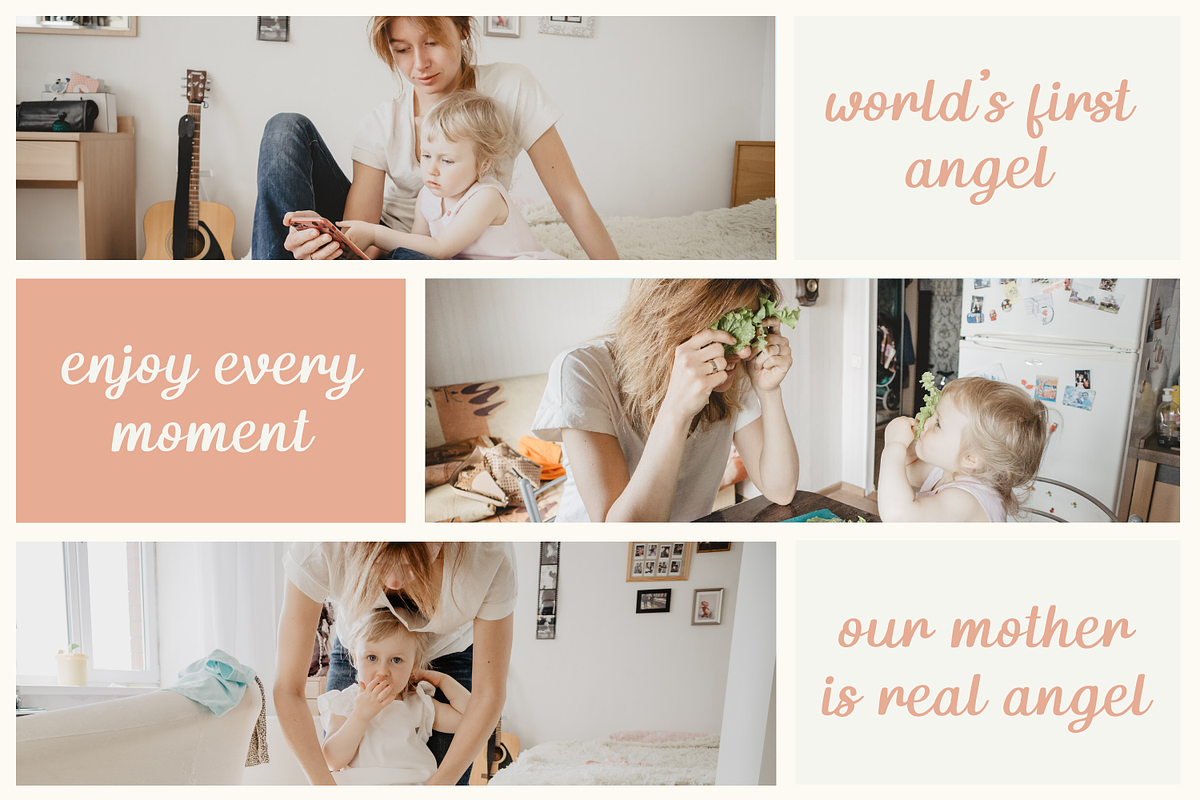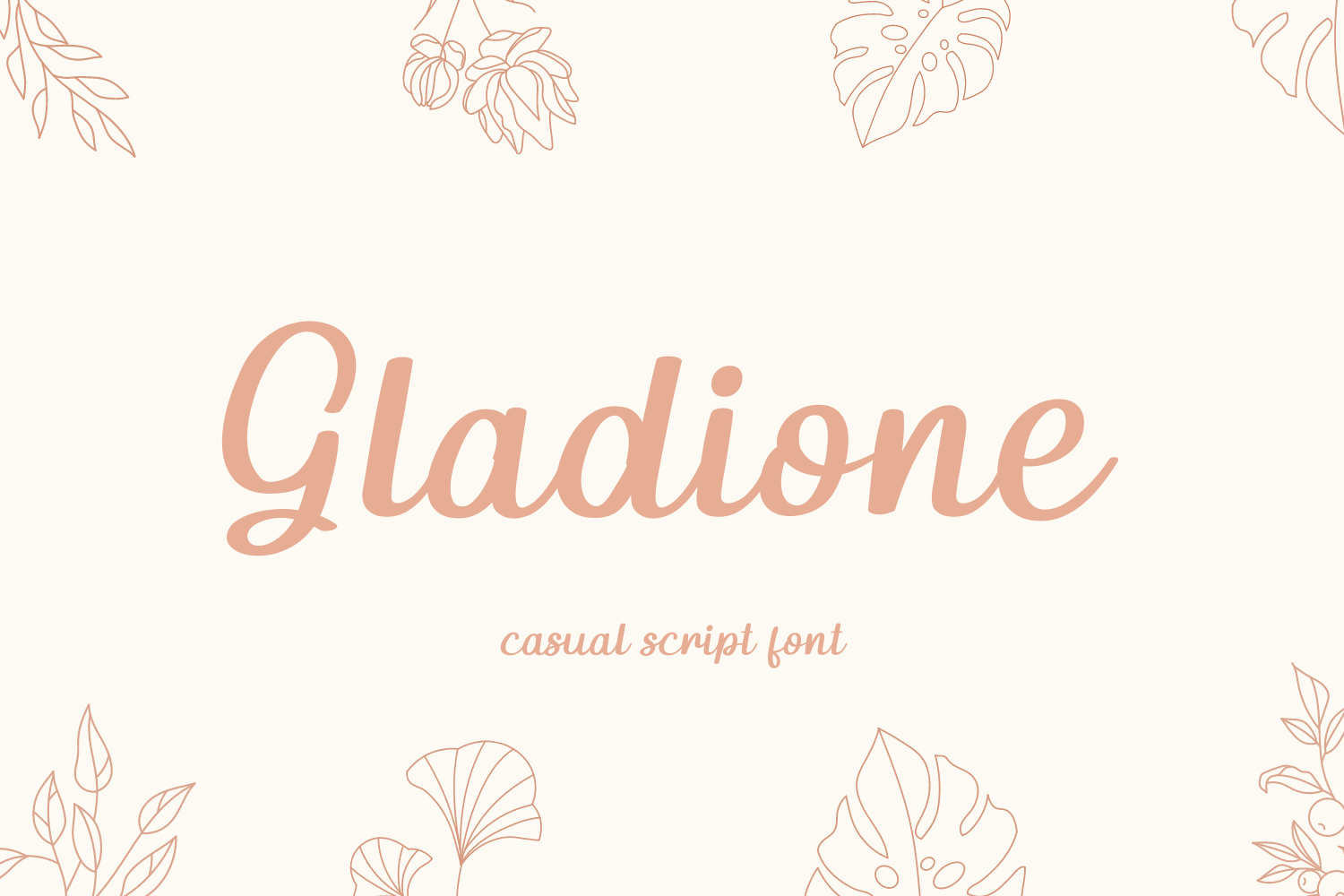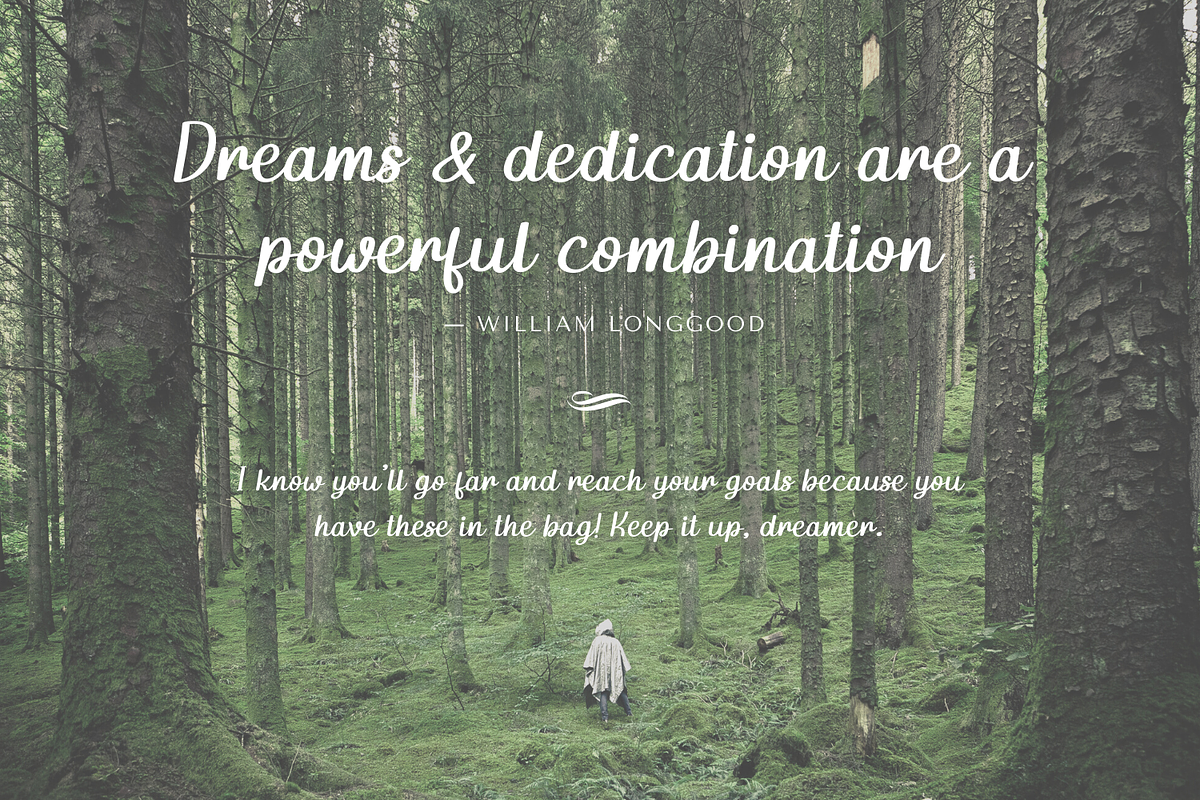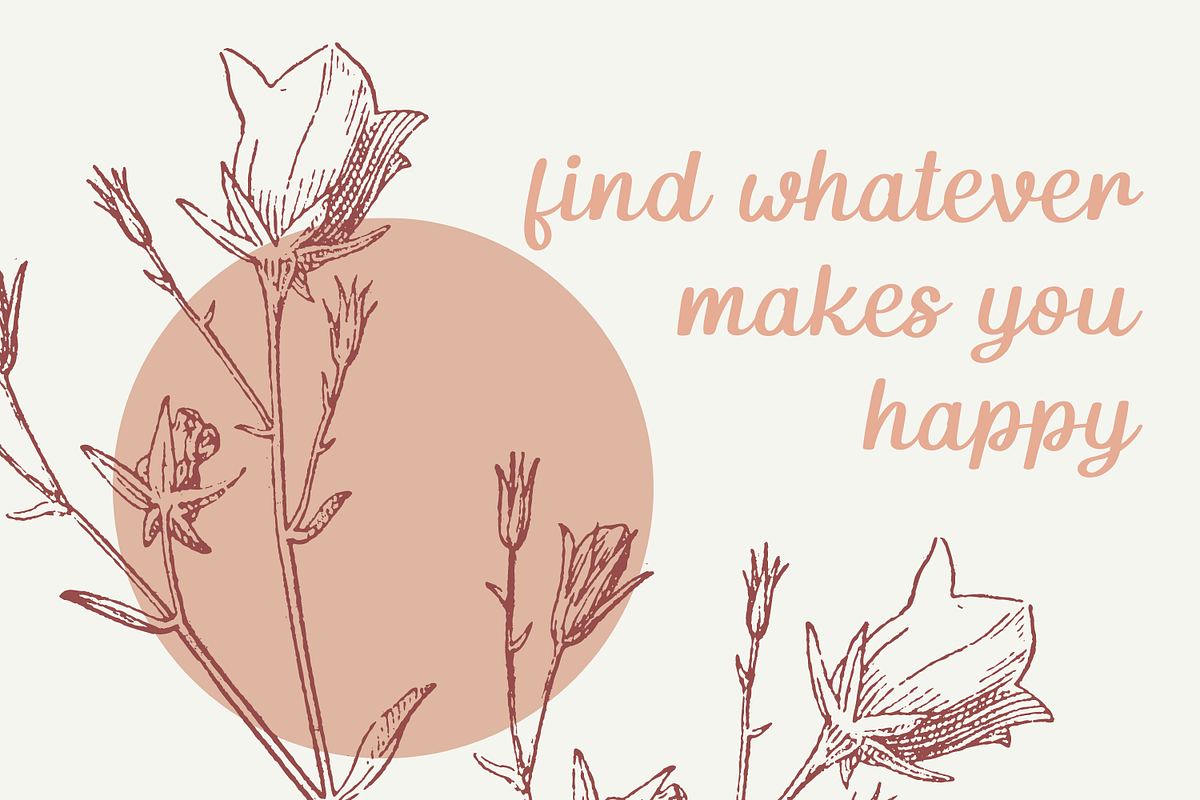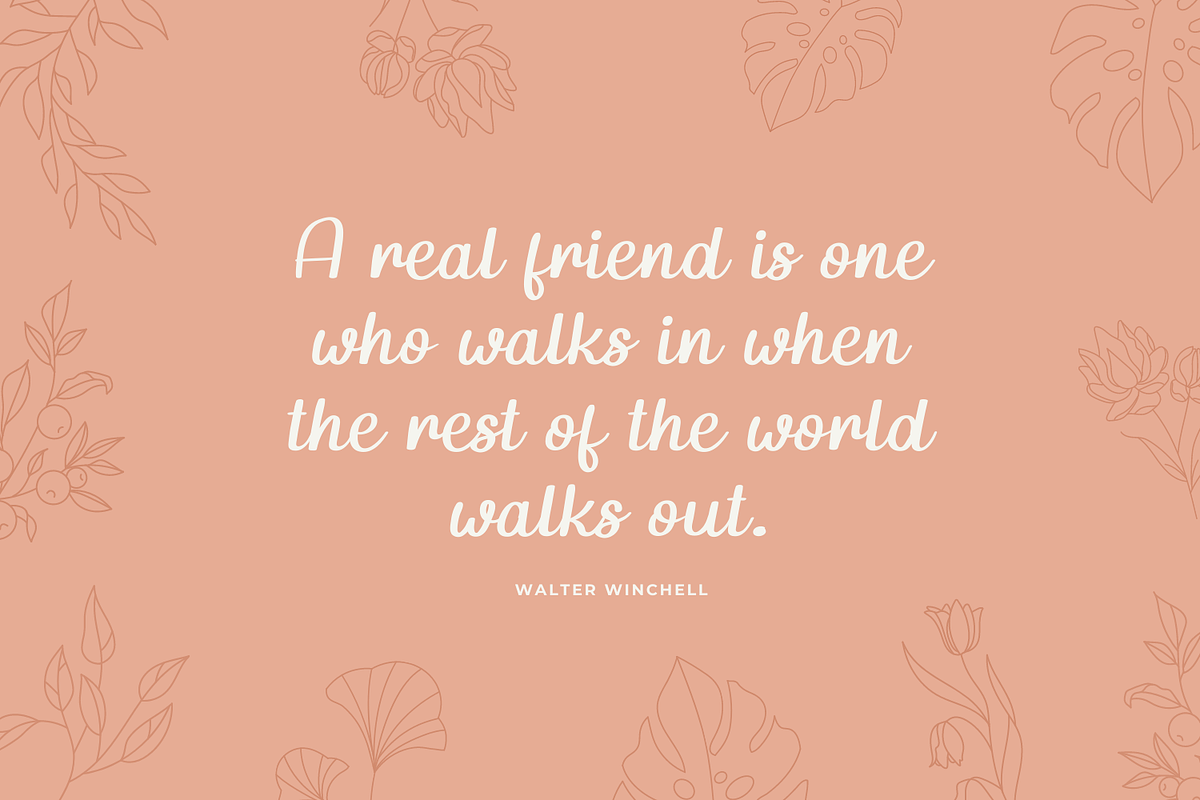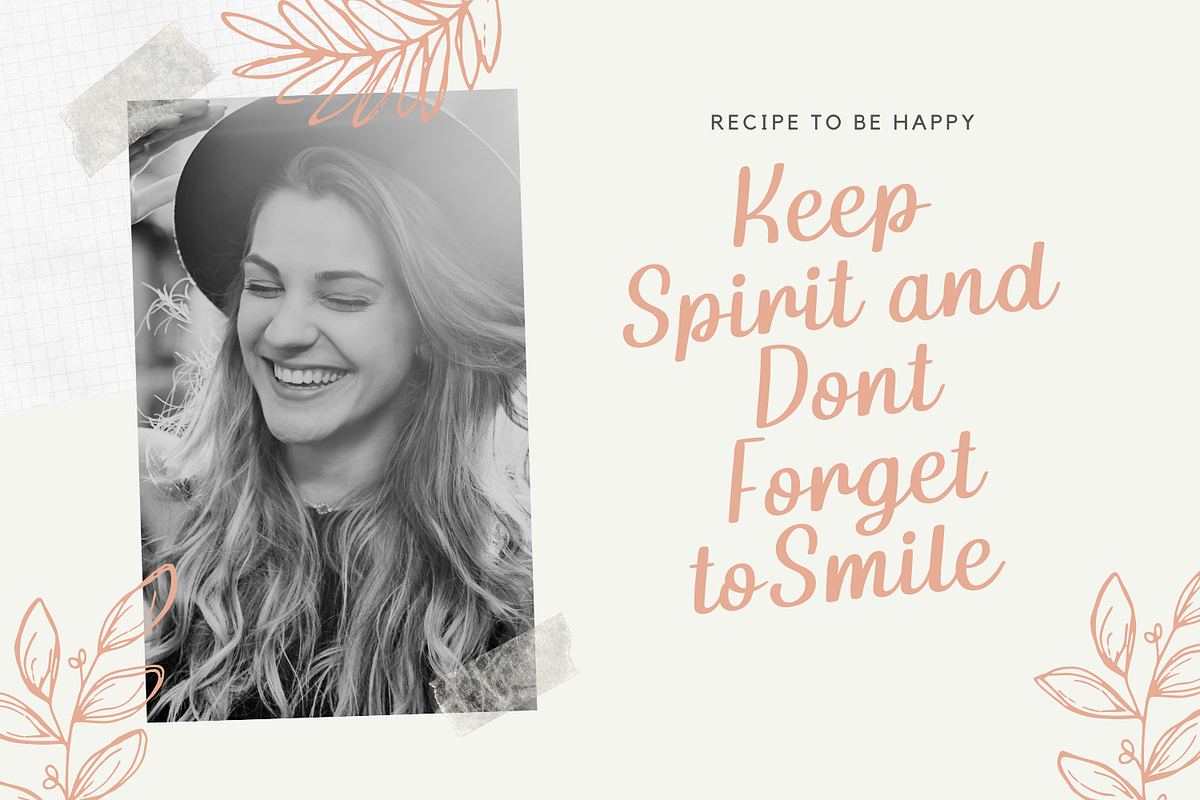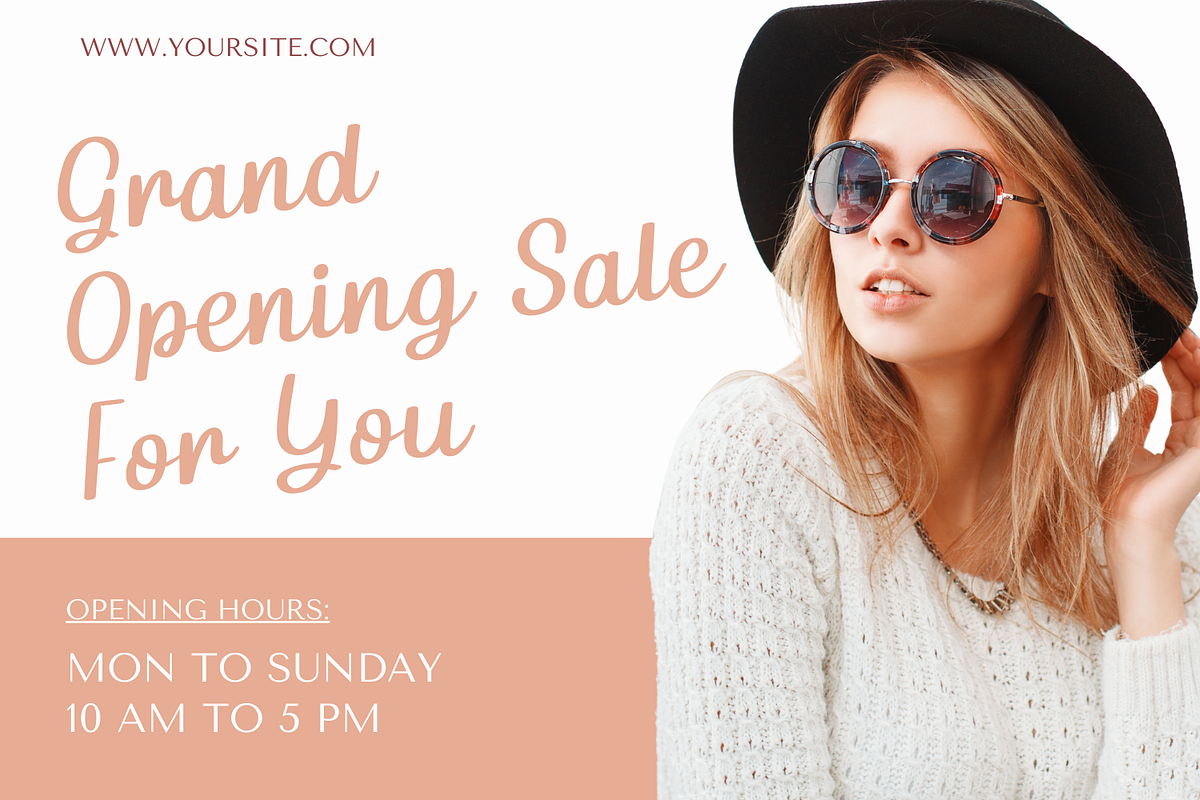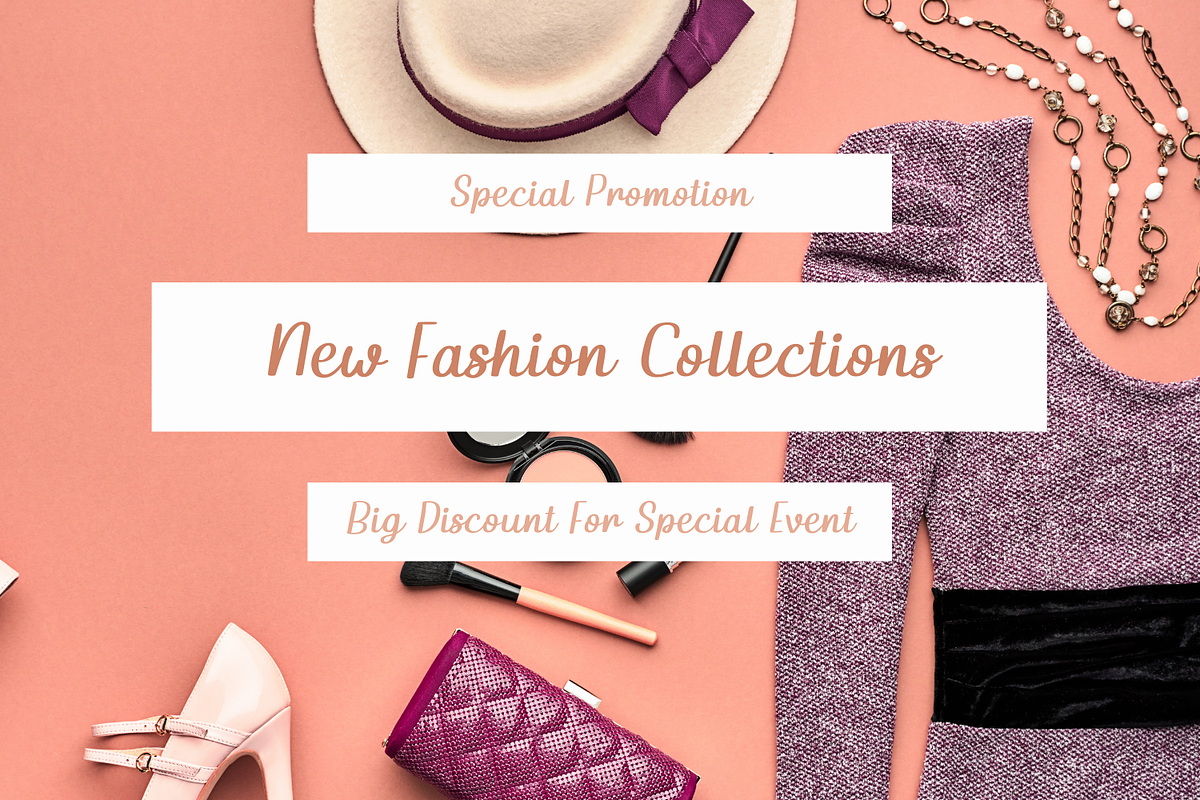
Gladione Casual Script Font
Gladione is a sweet and friendly handwritten script font, perfect for beautiful quotes and casual project. This font will look outstanding in any context, whether it's being used on busy background or as standalone headline or quotes.